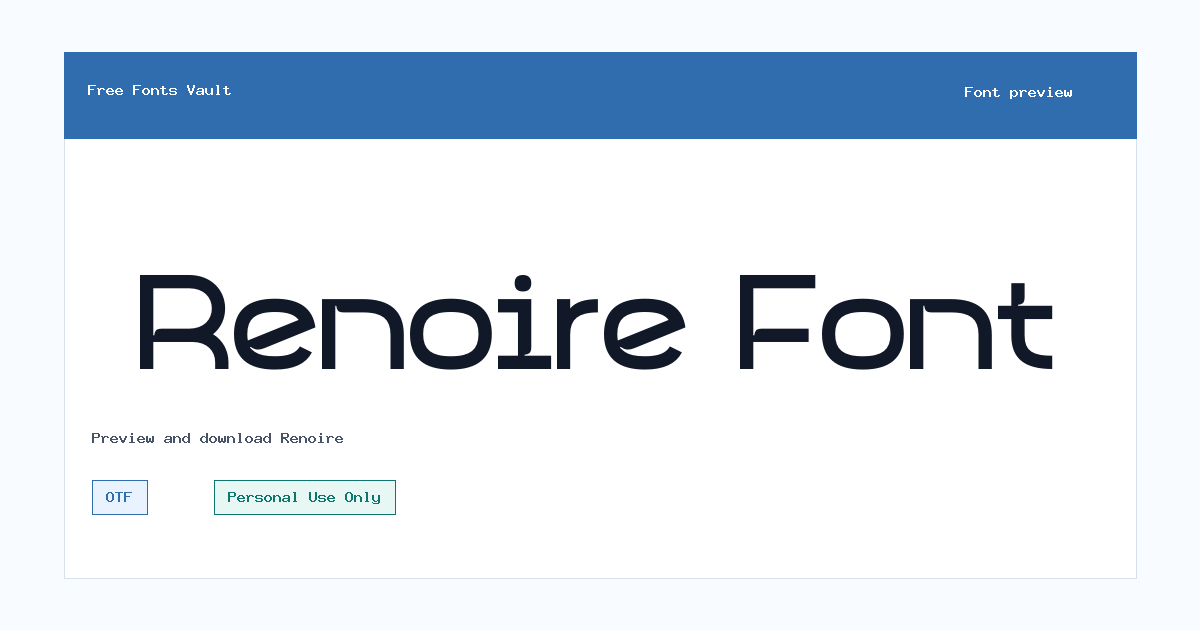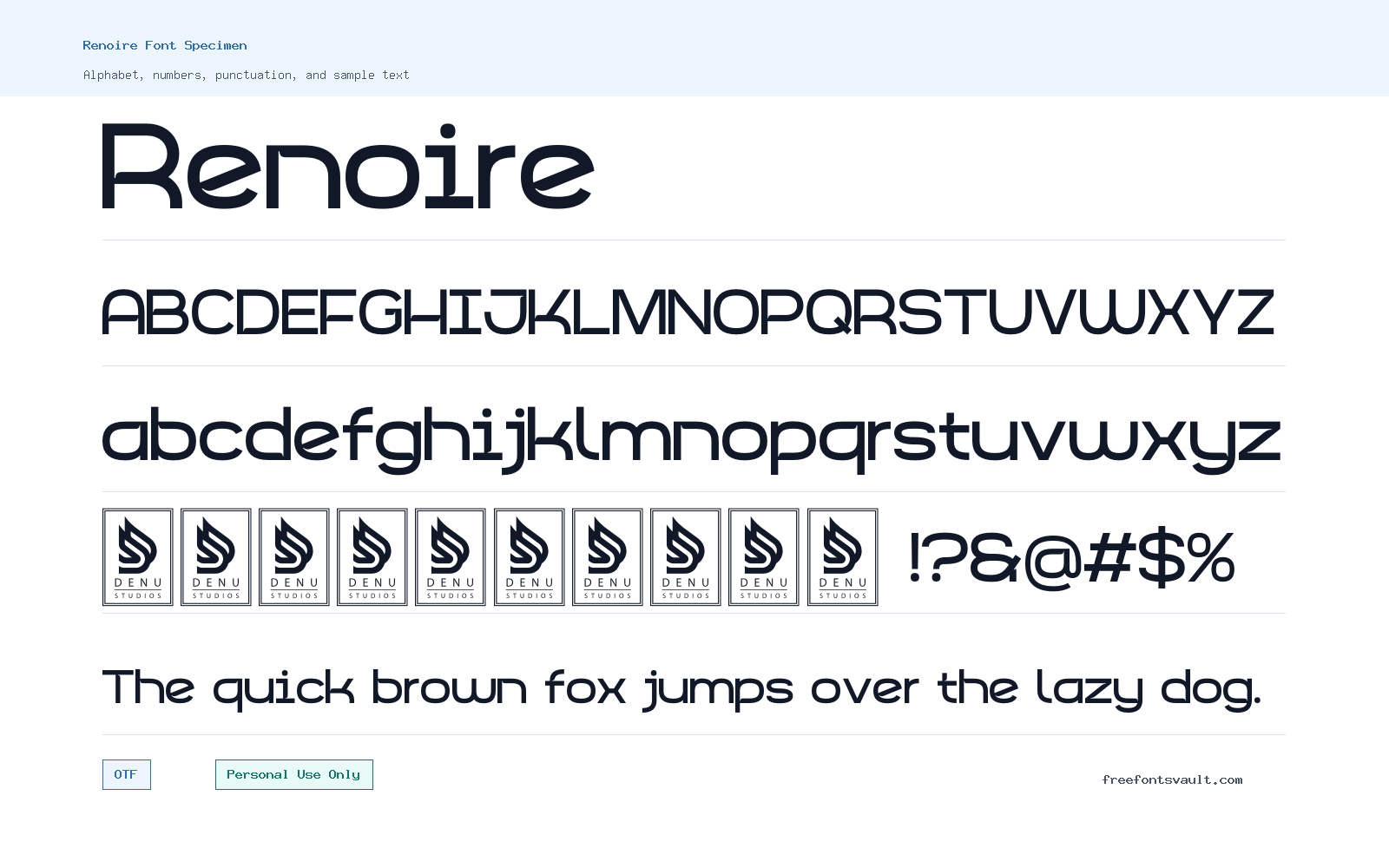
Renoire
- Designer Dede Nugraha
Renoire font.
Renoire is a display sans serif font with a clean letter structure and a slightly retro character. It works best when you need a stylish headline face for short text, previews, mockups, posters, packaging drafts, or social graphics.
About Renoire Font
Renoire is credited to Dede Nugraha and connected with Gracetype Studio. The available font file is an OTF demo in a regular weight, so it is easy to test in most design apps that support OpenType fonts. Third-party listings describe Renoire as a sans serif display font and place it in retro and sans serif categories, which matches the kind of use where the font is likely to feel strongest: names, titles, labels, and short brand-style text rather than long reading paragraphs.
- Display sans serif style suited to short titles and preview text
- Poster titles, social media graphics, and cover mockups
- Logo drafts, packaging concepts, labels, and short branding text
Renoire is credited to Dede Nugraha. Gracetype Studio is associated with the designer source and offers fonts with license options through its website.
What type of font is Renoire?
Renoire is a display sans serif font. Third-party font listings also categorize it with retro and sans serif styles.
Who designed Renoire?
Renoire is credited to Dede Nugraha, with Gracetype Studio connected as the designer source.
What should I use Renoire for?
Use Renoire for short, visible text such as titles, posters, logo drafts, packaging mockups, and social media graphics. For long paragraphs, pair it with a simpler text font.